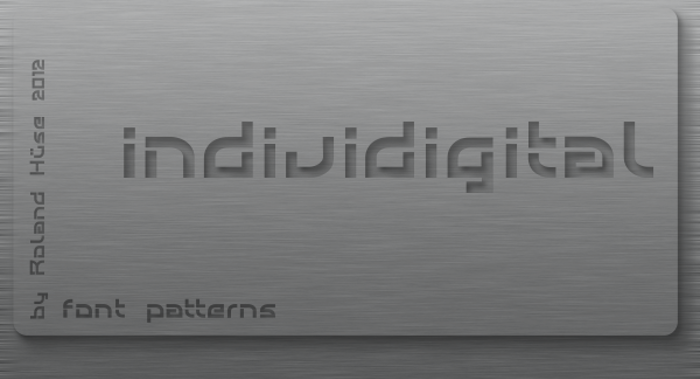
Individigital Font
This is another abstract font of mine, created in october 2011. Future updates may coming up. Feedback and helpful notices are welcome and would be greatly appreciated as it is helping me keep goin on the path of font design.